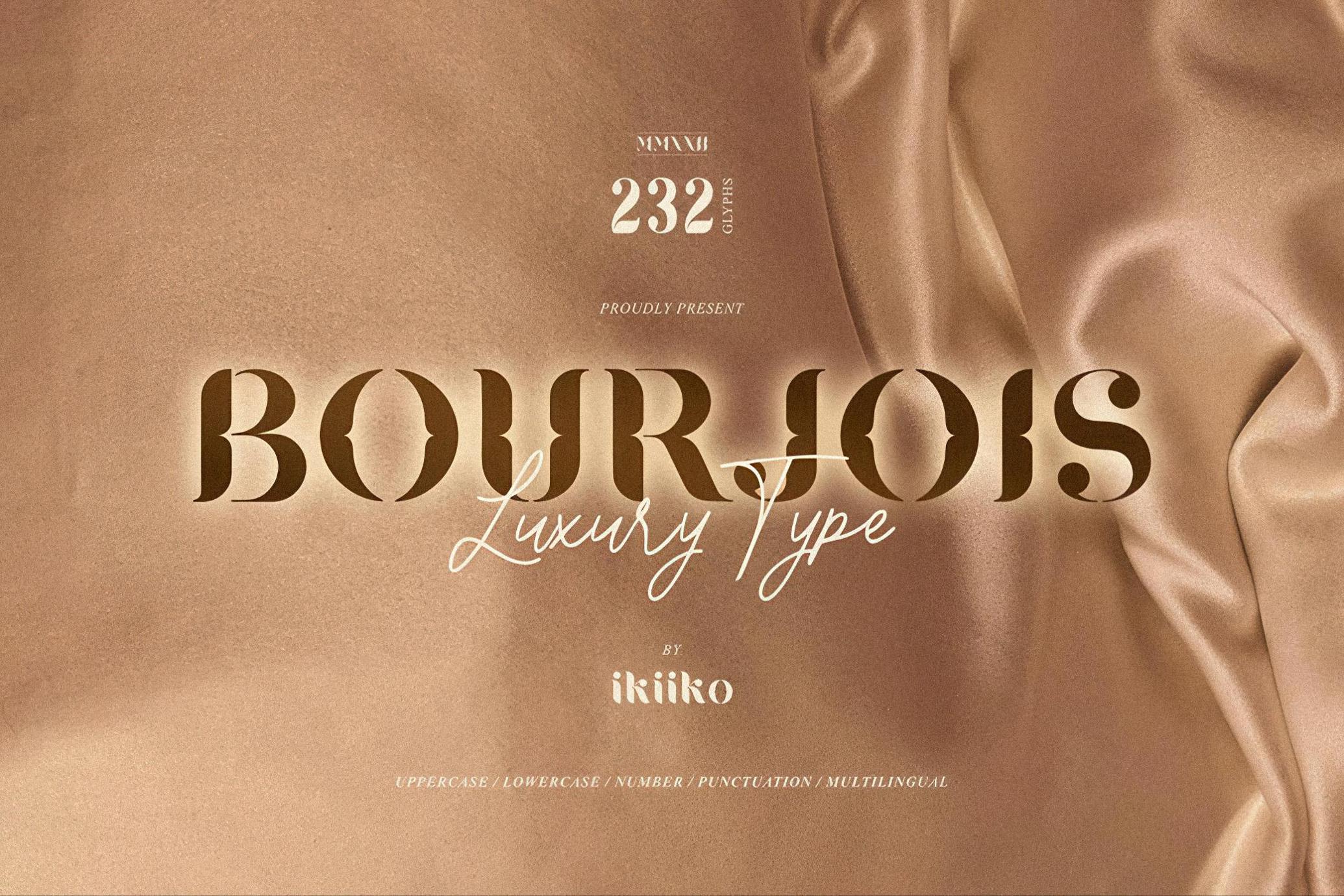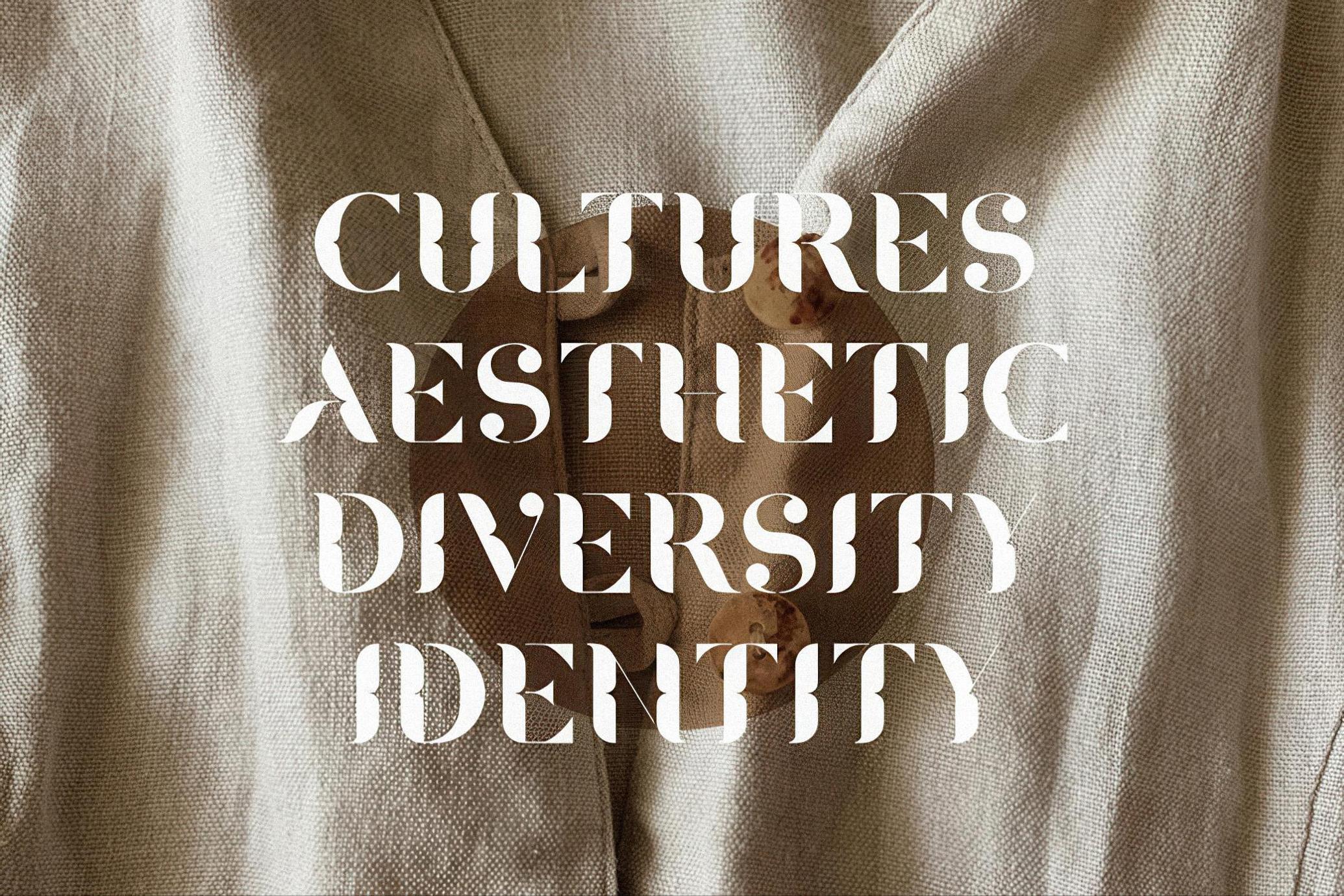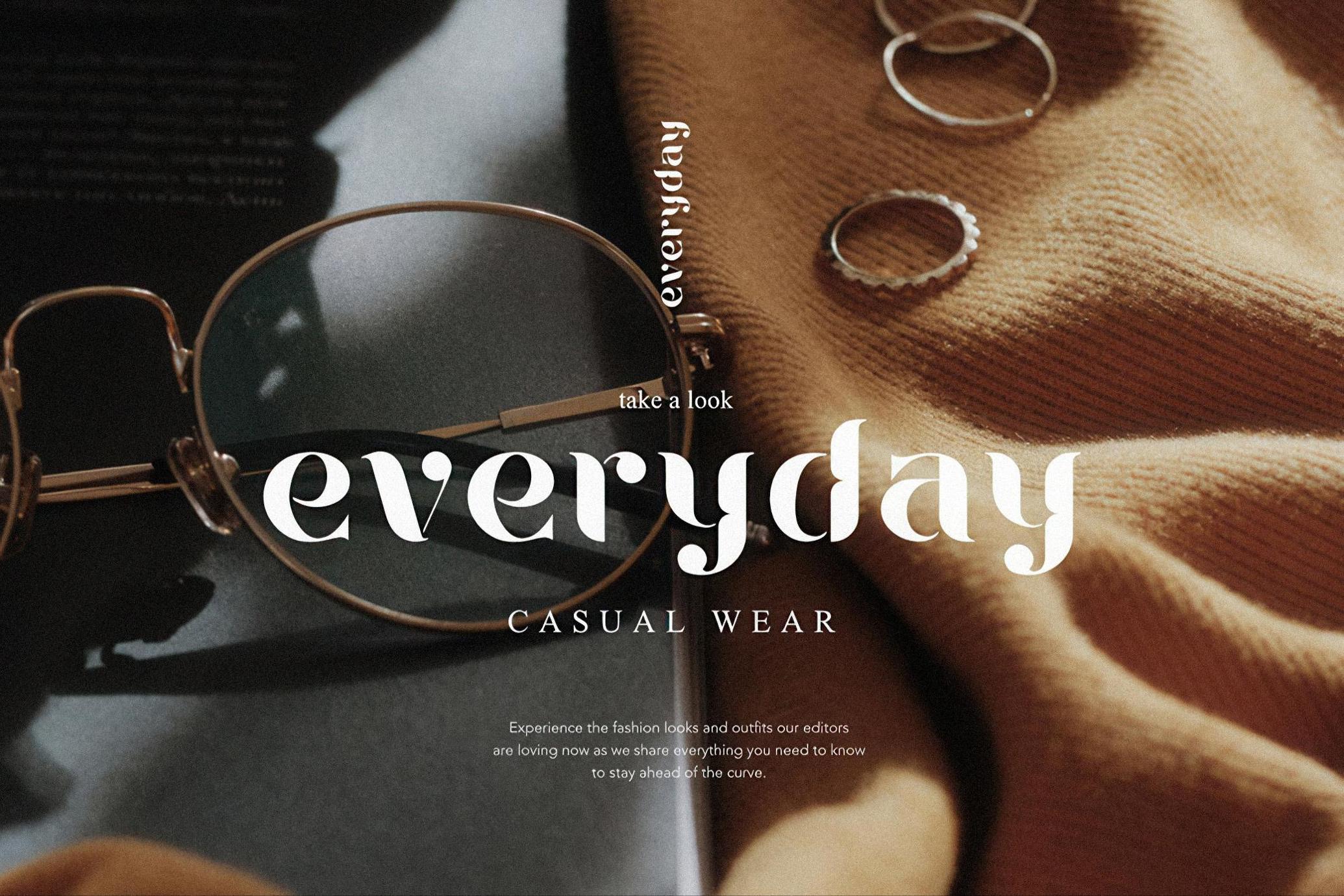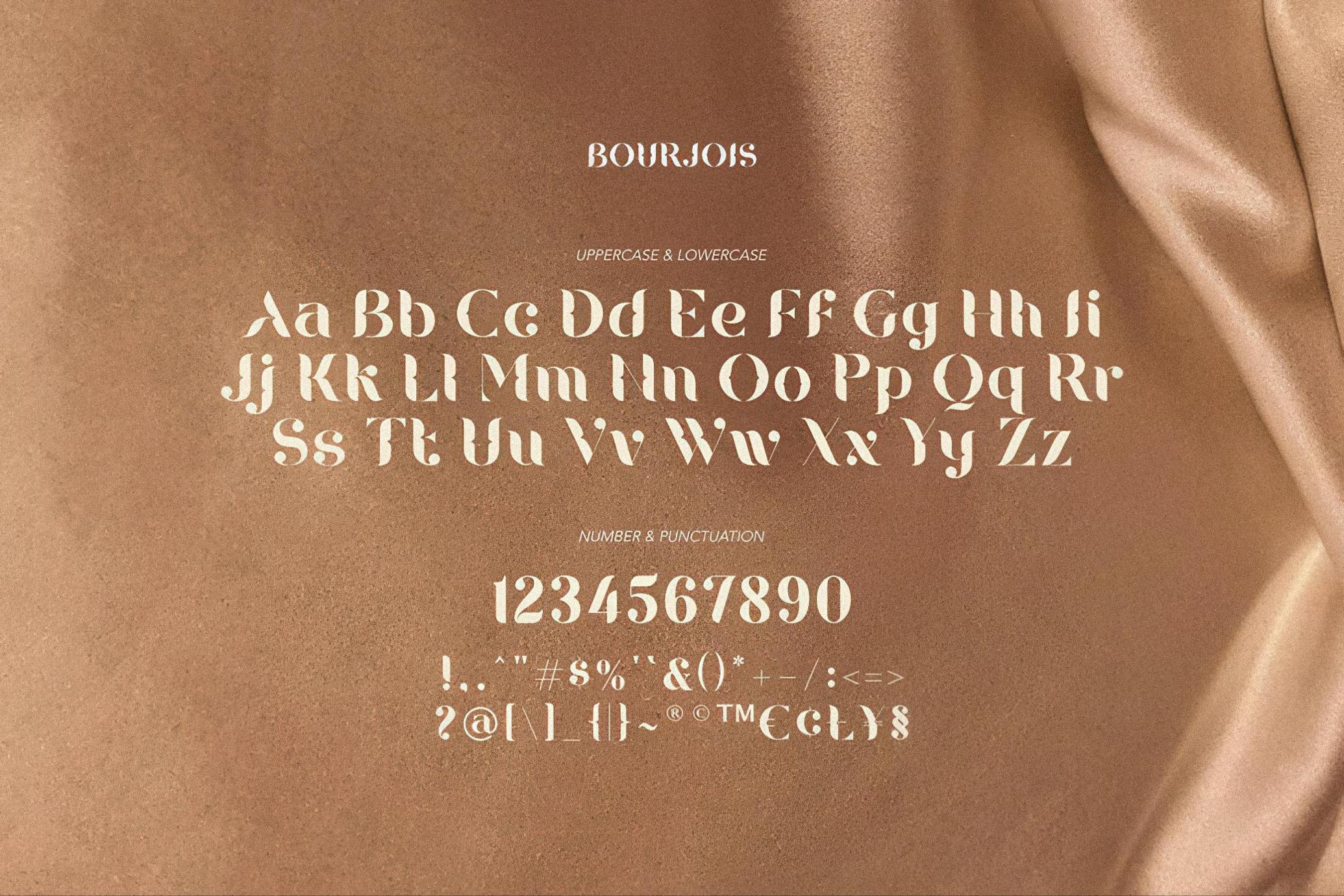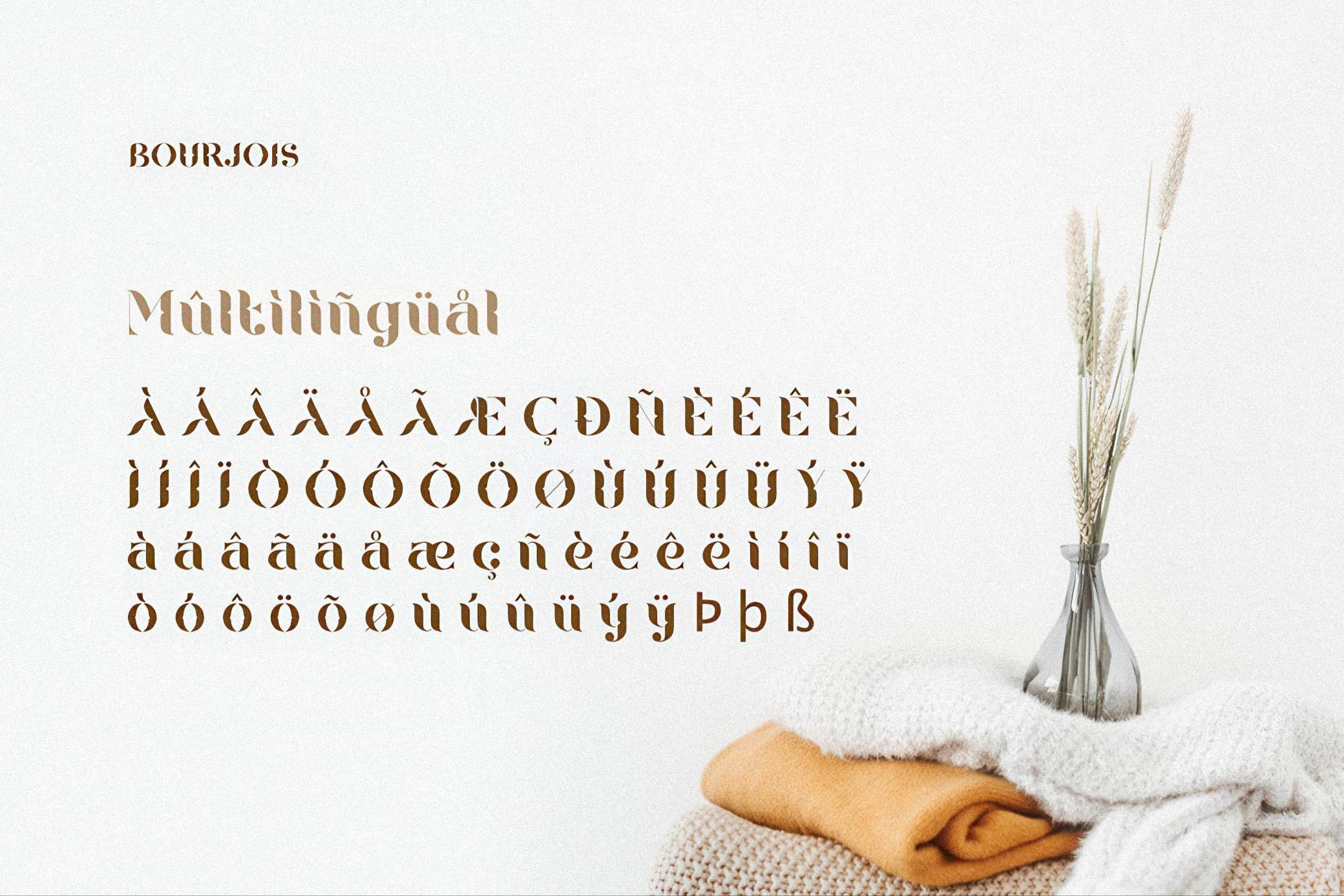
Bourjois - Luxury Font
Bourjois
BOURJOIS is inspired by "Bourgeoisie" , it is term for characteristic of the middle class, typically with reference to its perceived materialistic values or conventional attitudes. Bourjois is display type with elegant and classy impression. This letter has a unique curve with a feminine vibes. This typeface is perfect for an elegant logo, branding, beauty product such as a perfume, cosmetic etc, and also match with wedding, invitation, magazine design, packaging product, and luxury stuff.
- Number & Punctuation